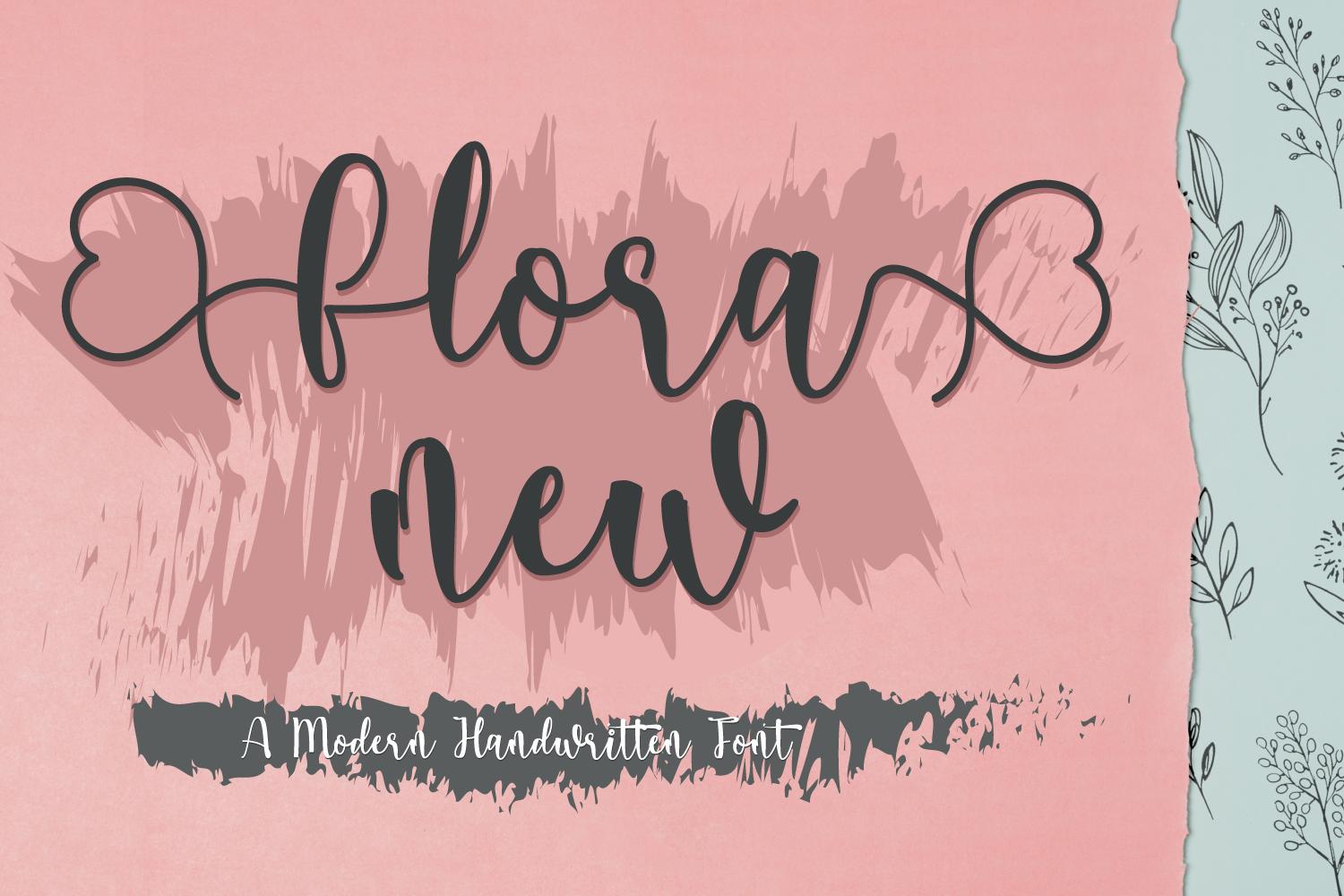
Flora Font Description
Flora feels equally charming and elegant. It looks stunning on wedding invitations, thank you cards, quotes, greeting cards, logos, business cards and every other design which needs a handwritten touch. This font is PUA encoded which means you can access all of the glyphs and swashes with ease! It features a varying baseline, smooth lines, gorgeous glyphs and stunning alternates.